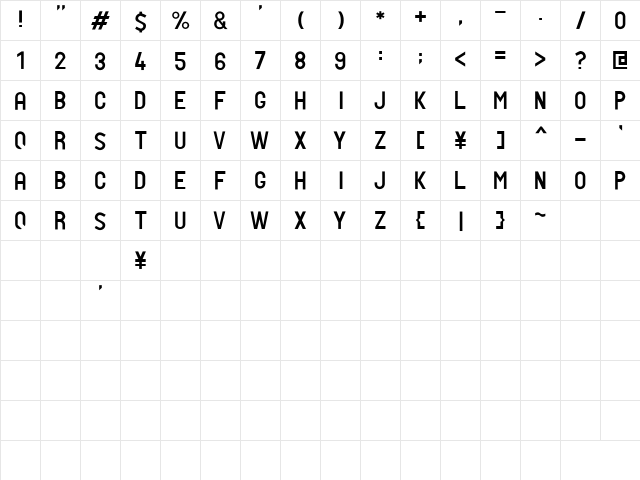
PTF NORDIC Std Lt Light
Design Context for PTF NORDIC Std Lt Typeface
PTF NORDIC Std Lt offers clean, dependable letterforms without strong stylistic allegiance, making it a practical choice for designers who need flexibility. The delicate stroke weight brings airiness and refinement to layouts.